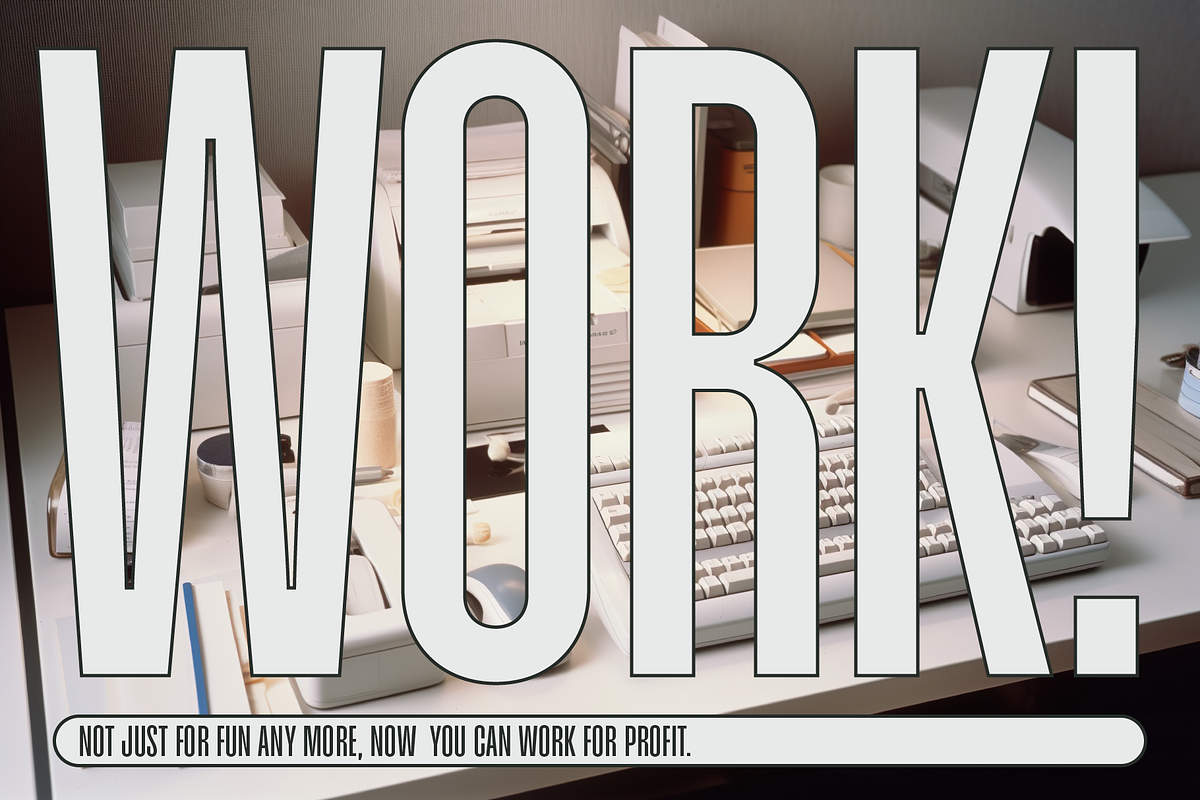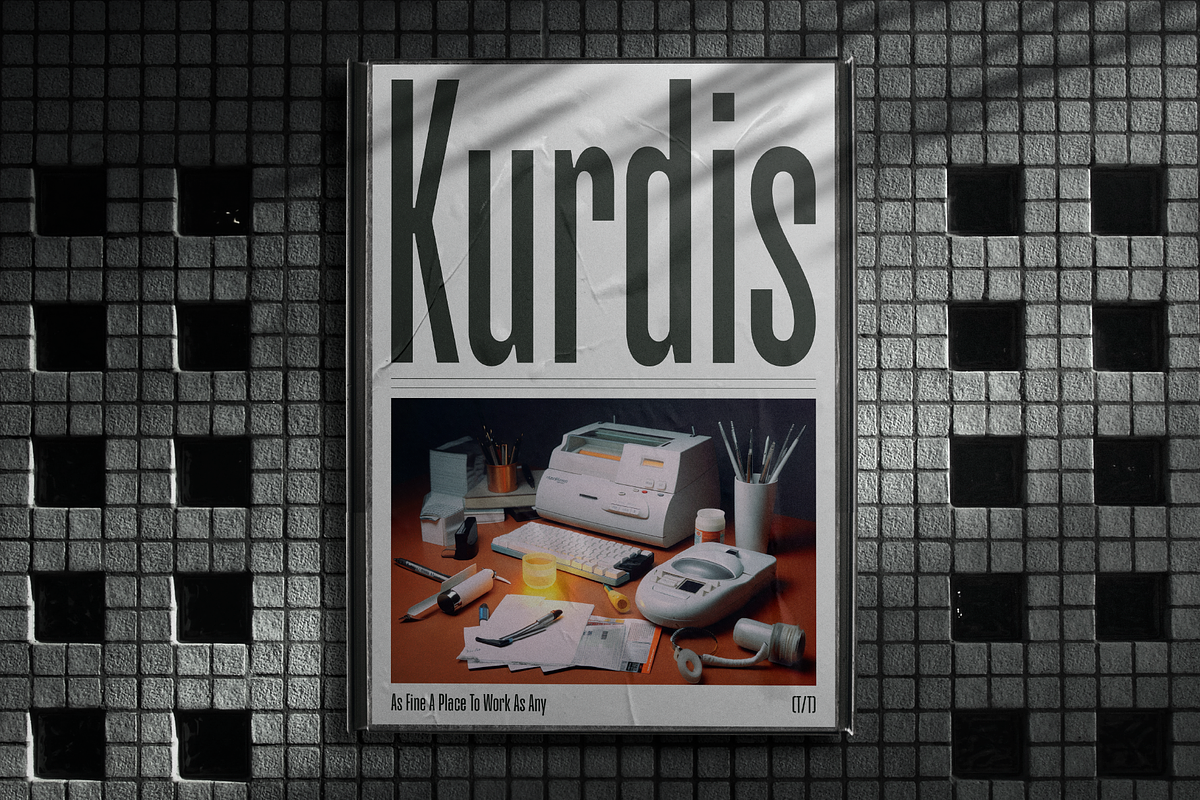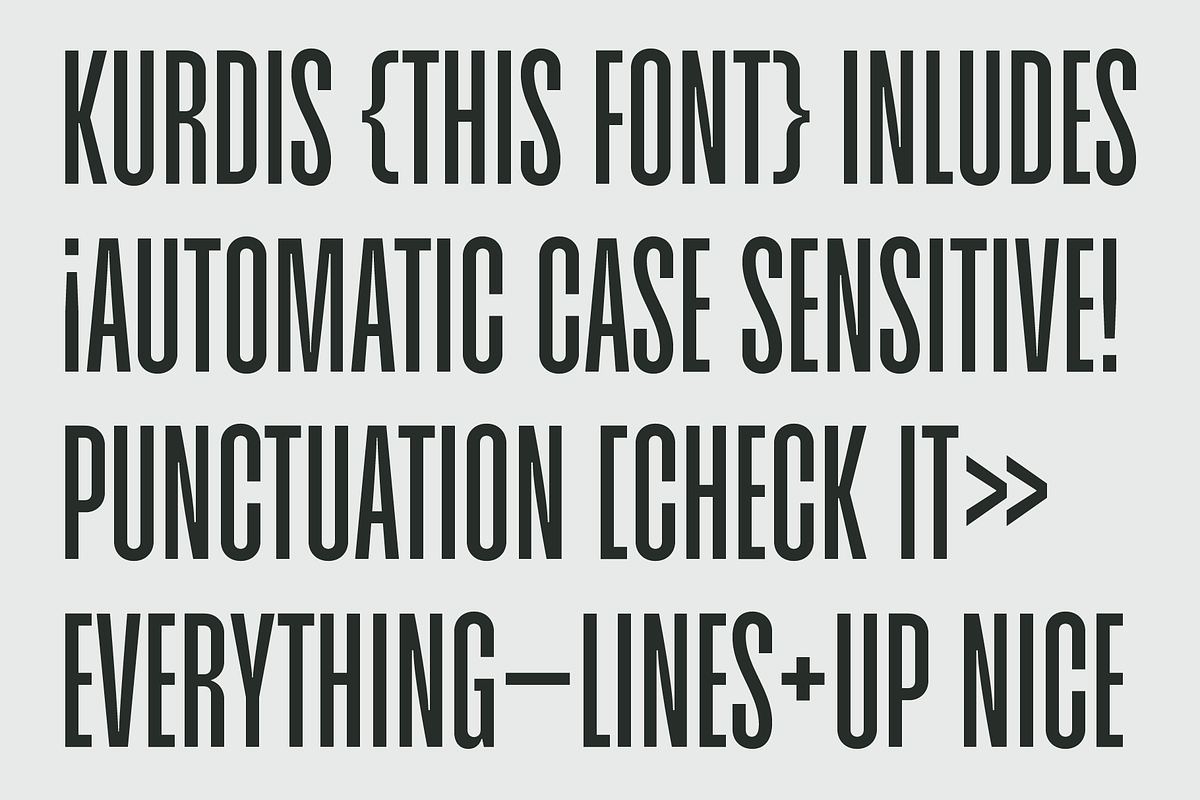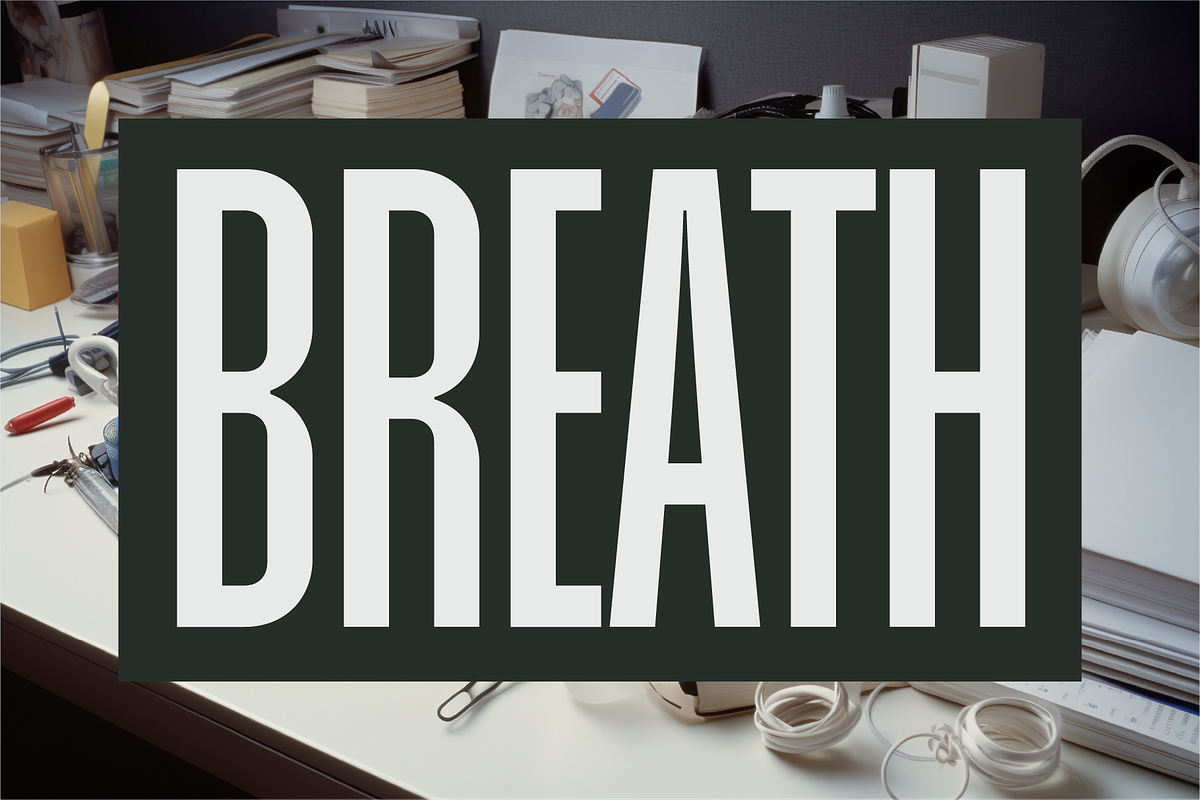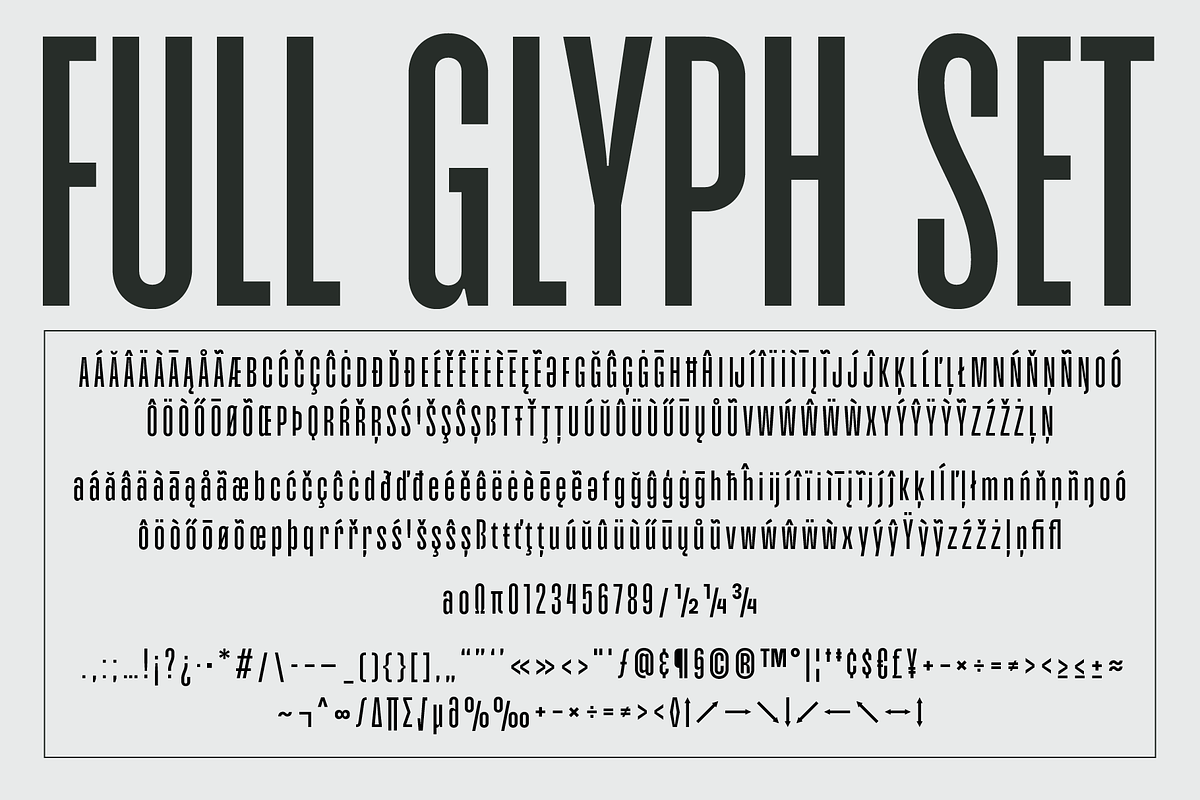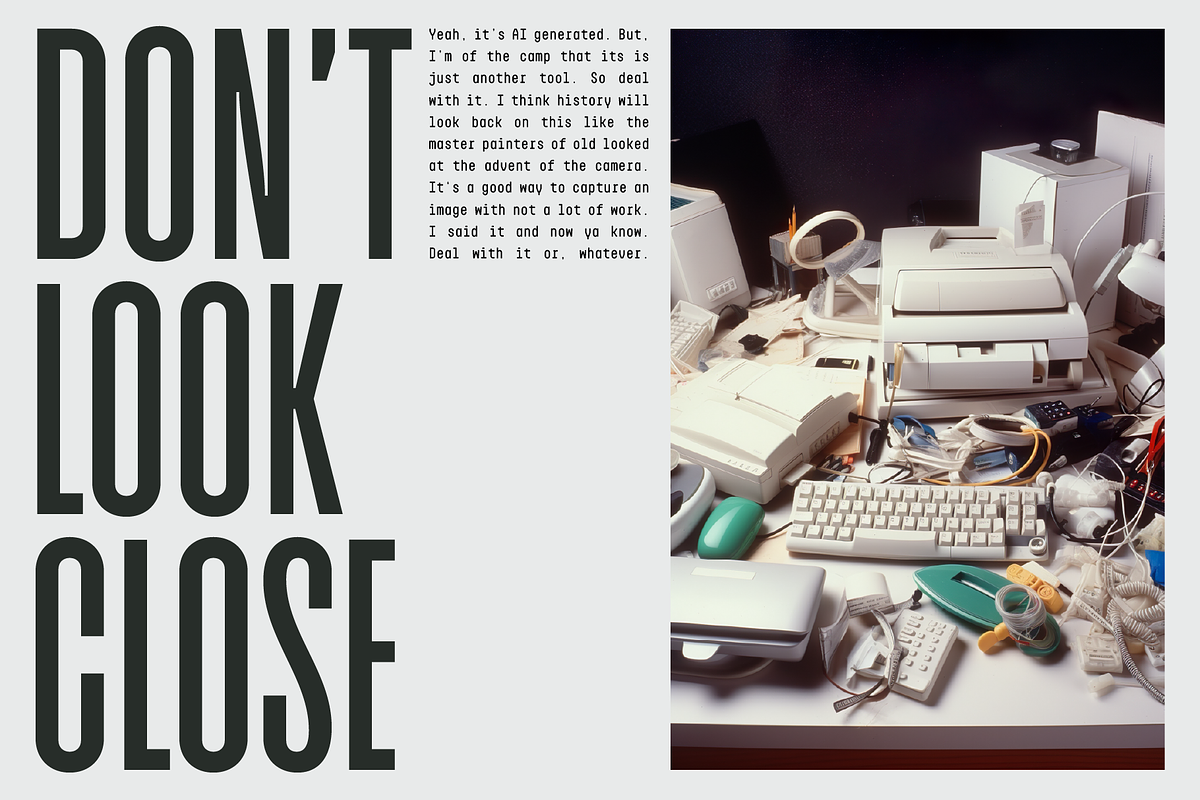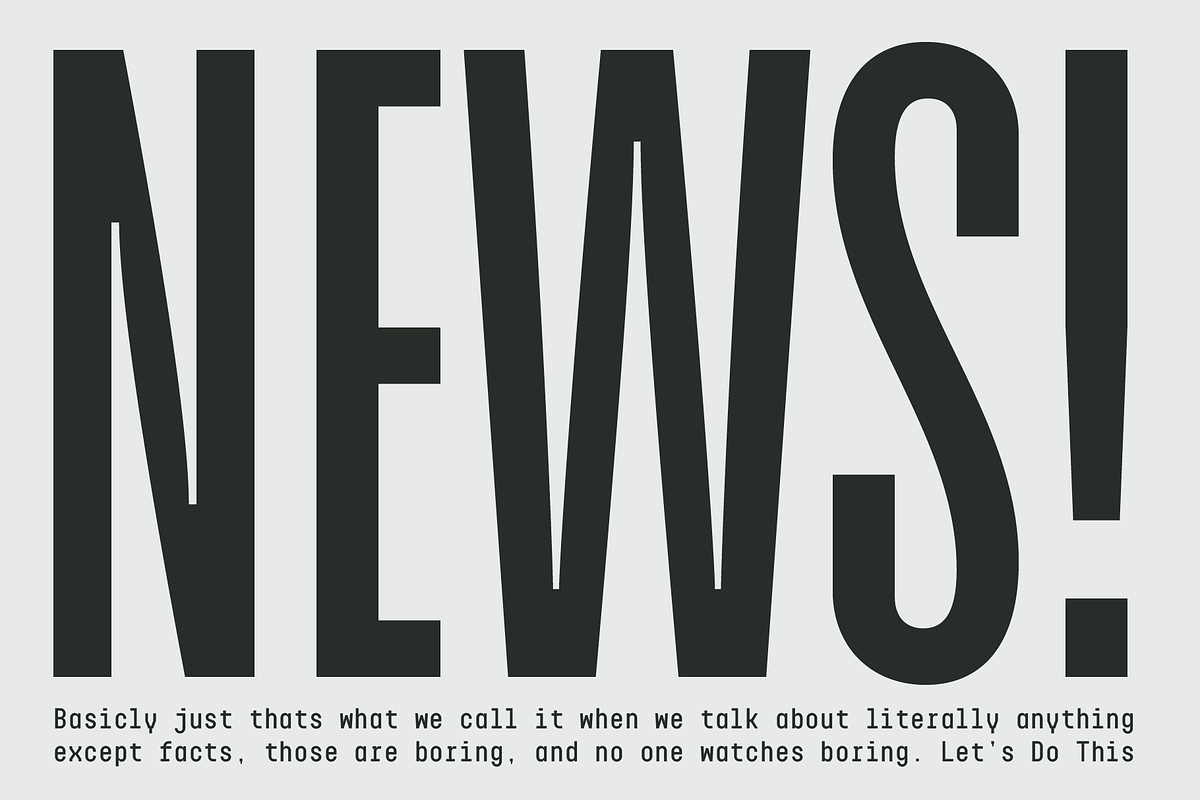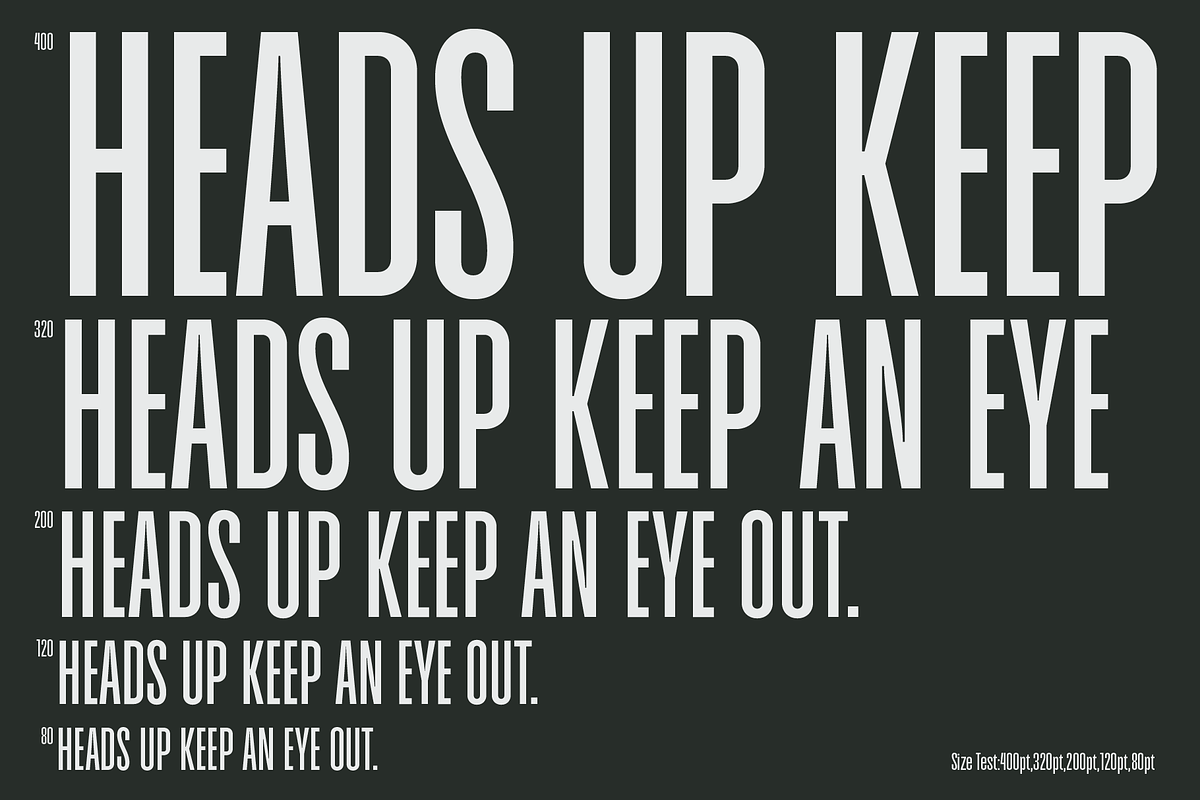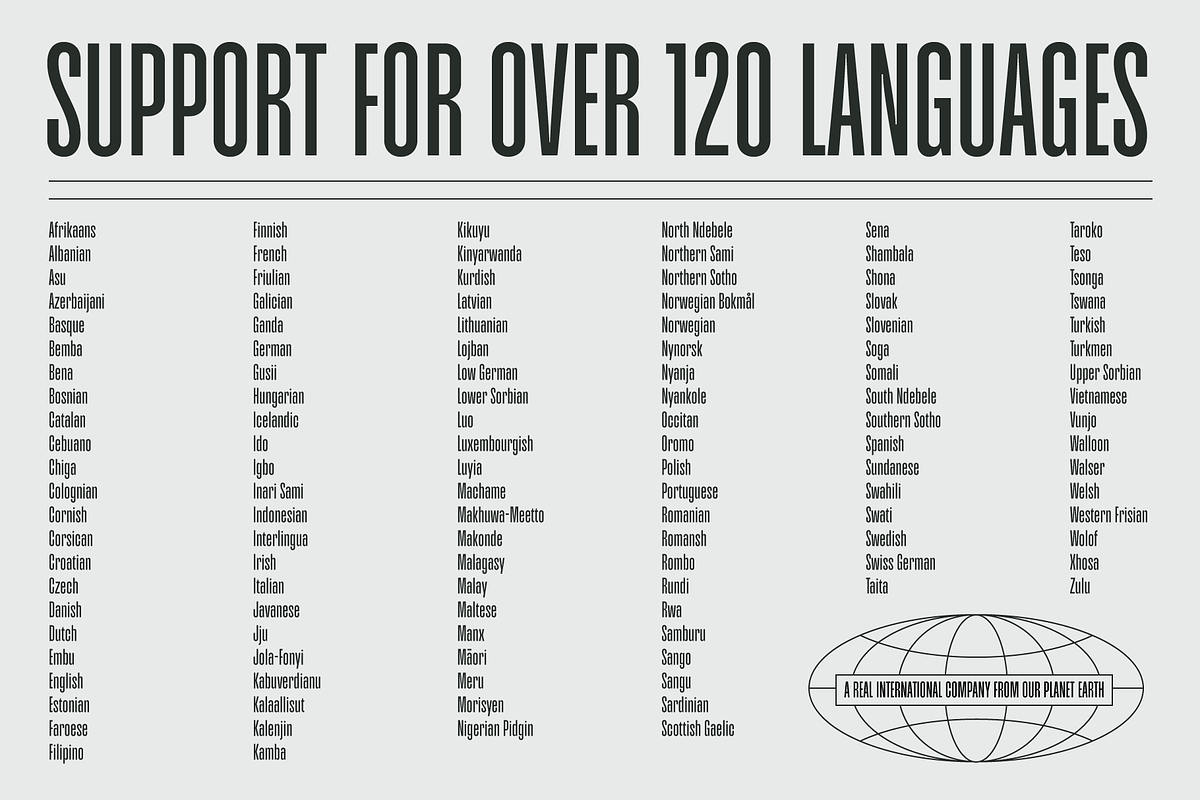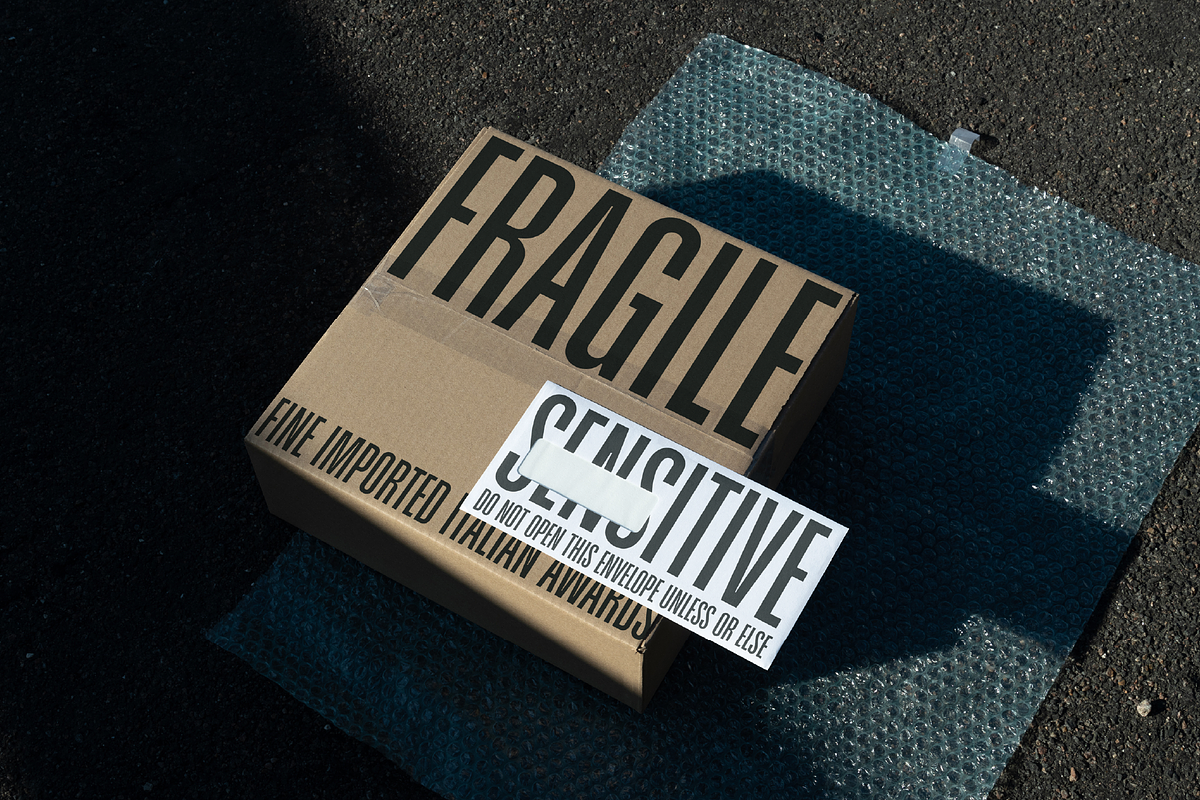
Kurdis Extra Condesned Font
Kurdis is a super condensed modern geometric display font that is designed to be used for clean contemporary titles, posters, magazines, logos, film titles, and branding. It is the perfect font to catch your attention from far away withers striking characters and hold your attention up close with the carefully considered details like the subtle ink traps.
Font Includes
- Upper Case
- Lower Case
- Case Sensitive Punctuation
- Arrows
- Support for Over 120 Languages